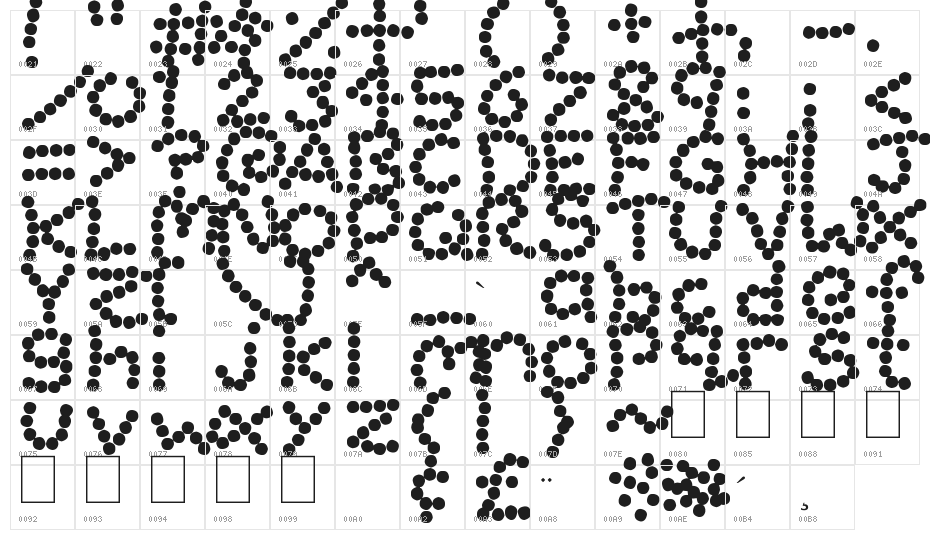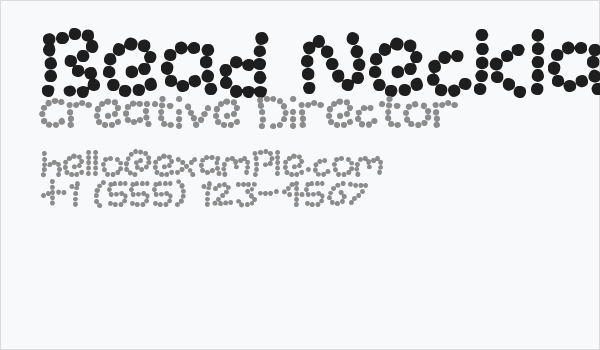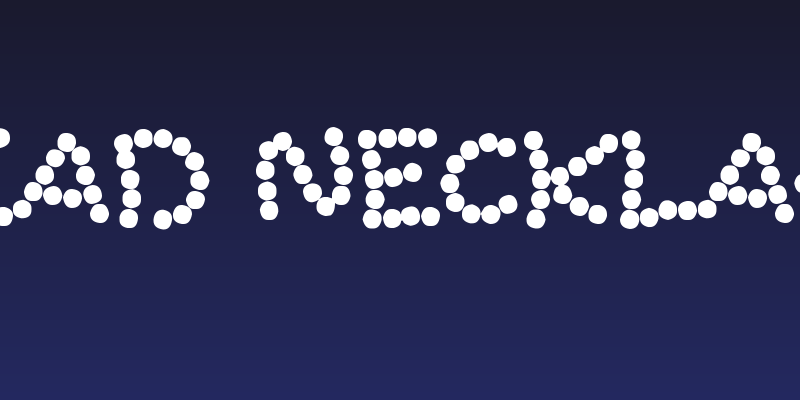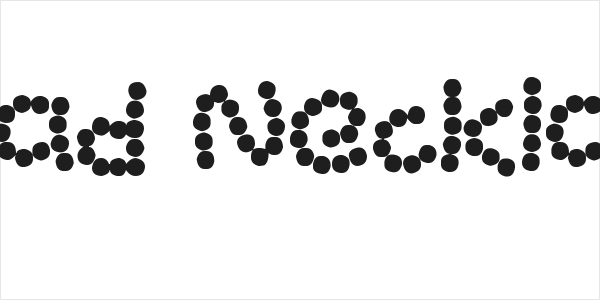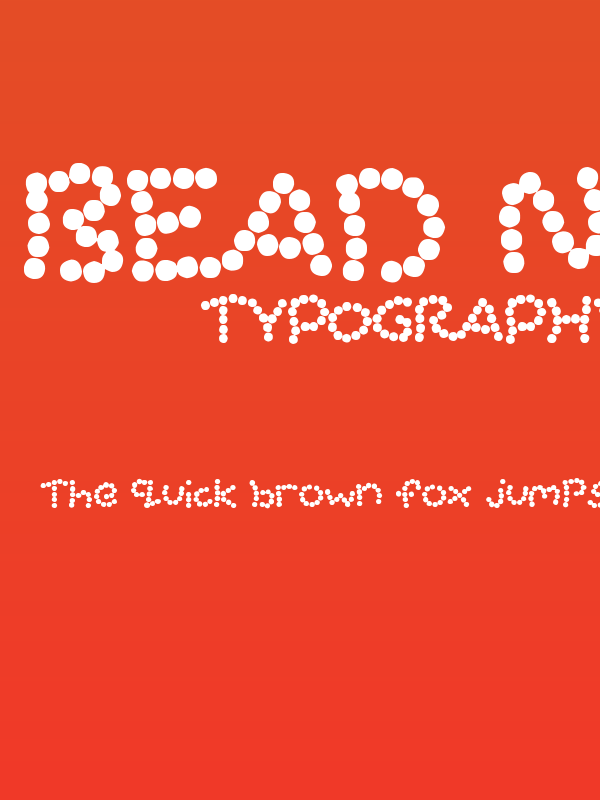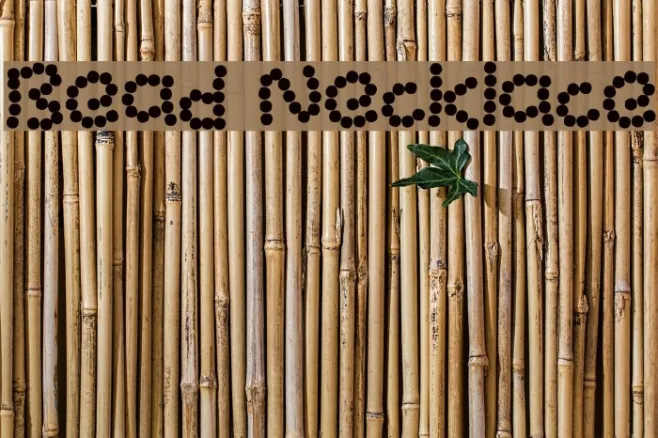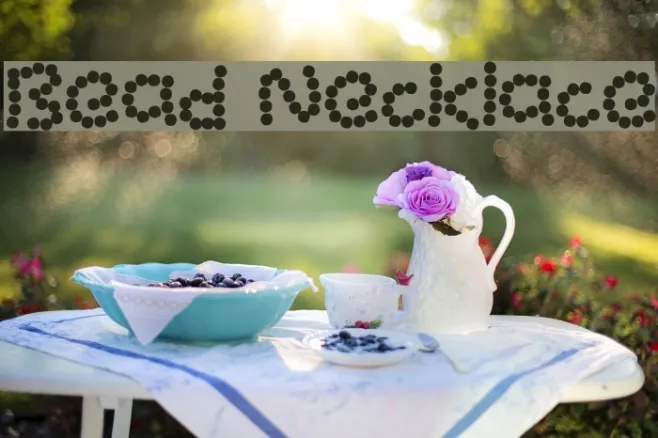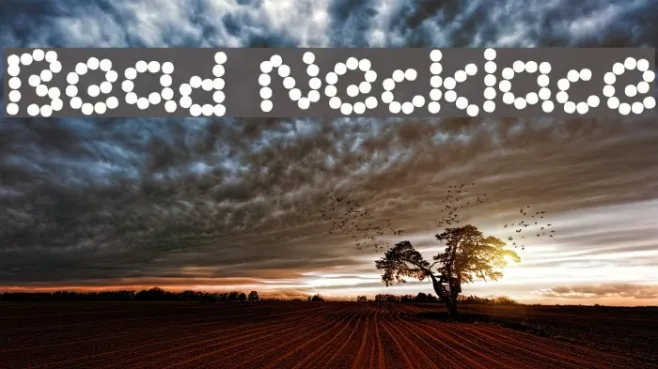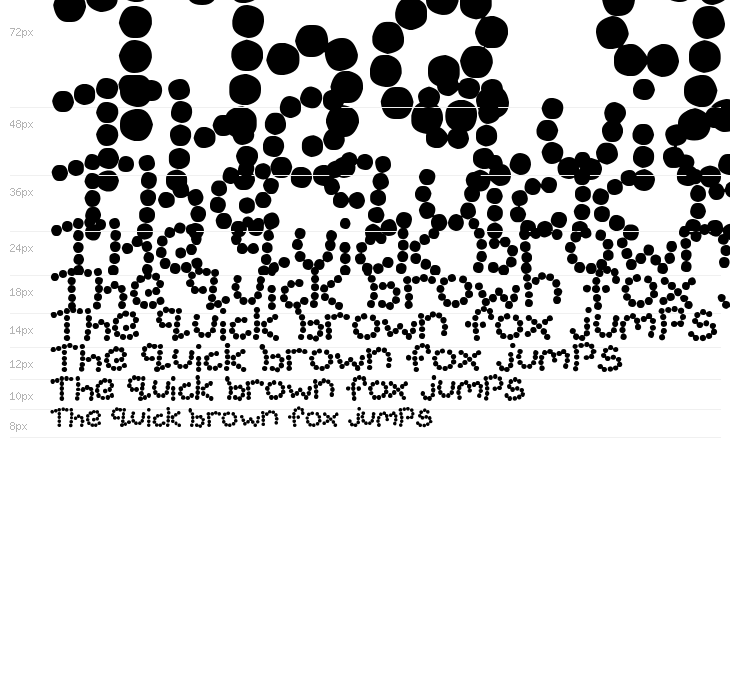
Bead Necklace Font
Bead Necklace Description
This unique typeface is composed entirely of circular dots, resembling a string of beads. Each character is formed by a series of evenly spaced dots, creating a playful and decorative appearance. The font maintains a consistent dot size throughout, giving it a uniform and cohesive look. The rounded shapes of the letters and numbers contribute to its friendly and approachable style. Despite its decorative nature, the characters remain legible and distinct, making it suitable for creative projects that require a touch of whimsy and fun.
| Proposed Projects | Ideal for children's book covers, party invitations, playful branding, and craft projects. |